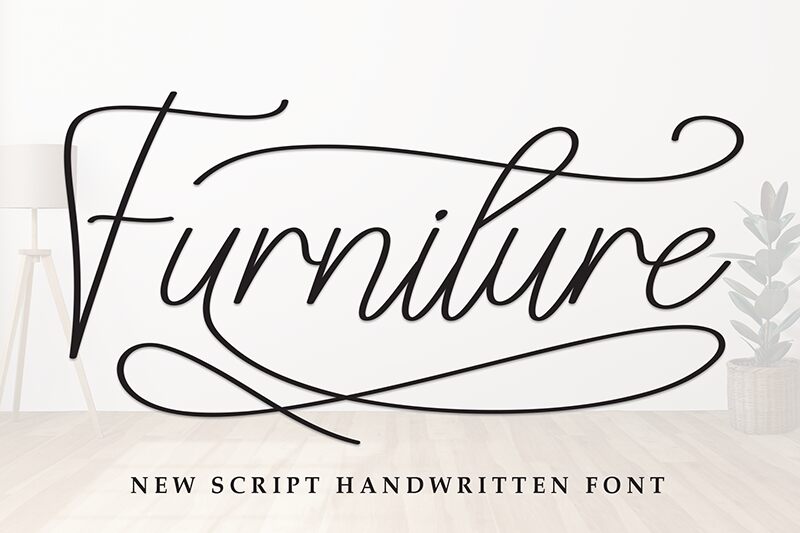
Furniture
Furniture font by Scratchones is a free handwritten font that embodies elegance, modernity, and grace in its every curve. The authentic hand-drawn strokes present expressive forms and an overall flowing style which remains readable thanks to the balanced ascenders, descenders, and x-height levels. Combining delicate lines with light weight, Furniture achieves its graceful look which can be incorporated in countless design projects.
The versatile handwritten style can be used for developing logos for cafes or restaurants or in packaging designs related to food items. Other implementations include classic advertising posters and flyers but also web pages that need customizable headings or subtle body texts. You can even apply this flexible tool within typography projects like quote art; greeting cards; business cards; book covers; magazines; stationery decorations; personal letters.